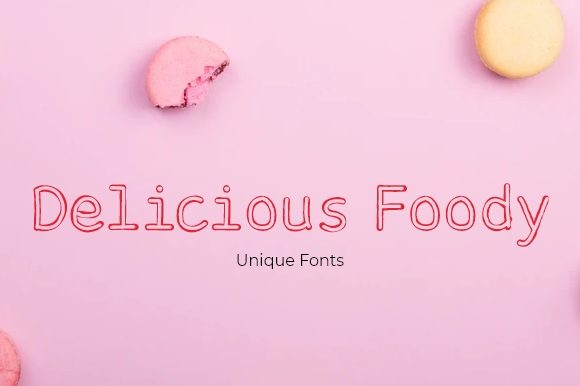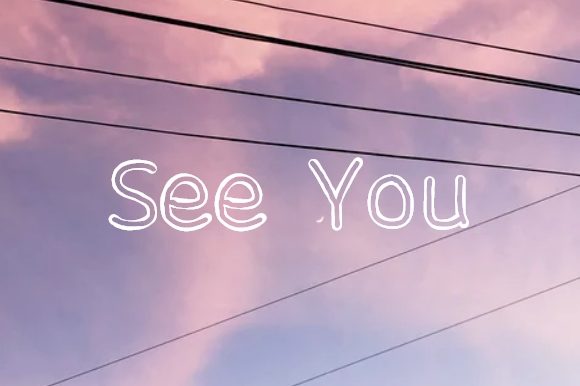
Introduction to Ornat Font
Do you remember that moment when you stumbled upon the perfect font for your creative project? The one that made your design pop, and your heart skip a beat? For many designers, that moment is a game-changer. It’s the moment when everything comes together, and your project takes on a life of its own.
Today, we’re excited to share with you a hidden gem that’s sure to become your new favorite design resource – the Ornat Font. This high-quality, cool handwritten font features outline characters that will add a touch of whimsy to any project. With its transparent background, you can easily layer it over your designs, creating a beautiful and unique visual effect.
Key Features of Ornat Font
- High-quality, vector-based font ideal for creative projects requiring intricate designs and details.
- Includes a range of glyphs and characters, including Latin, Cyrillic, and Greek alphabets, making it suitable for multilingual projects.
- Designed with a unique, ornate style that adds a touch of elegance and sophistication to any design project.
Honest Review: Ornat Font
As a designer, I’m always on the lookout for high-quality design resources that can elevate my creative projects. Recently, I stumbled upon the Ornat Font, and I’m excited to share my honest review with you.
What works well: ✨ The Ornat Font is incredibly versatile, with a range of styles and weights that make it perfect for a variety of design projects. I love how the font is designed with a transparent background, making it easy to layer and combine with other design elements. The font also has a unique, ornate feel that adds a touch of elegance to any design.
Any limitations: ⚠️ While the Ornat Font is an excellent addition to any designer’s toolkit, I do wish it had more language support. Currently, it’s only available in a few languages, which might limit its use for projects that require a broader language scope.
Overall, I’m thoroughly impressed with the Ornat Font. Its high-quality design, versatility, and transparent background make it a valuable resource for any designer. If you’re looking for a new font to add to your design arsenal, I highly recommend checking out the Ornat Font.
The Ornat Font is ideal for various design projects, including wedding invitations, business cards, and social media graphics. Its high-quality design makes it a popular choice among designers.
Tips for Getting the Most Out of Ornat Font
To get the most out of the Ornat Font, experiment with different font sizes, colors, and styles. You can also combine it with other design elements to create a unique and eye-catching design. Additionally, make sure to save a copy of the font in a transparent background format to ensure seamless integration with your design.
The Alex Brush Font is a beautiful, high-quality script font that’s perfect for use in design resources such as wedding invitations, certificates, and other formal documents. It’s available for free download, making it a great design resource for those looking for a high-quality font without breaking the bank.
Is the Ornat Font suitable for print or digital use?
The Ornat Font is designed to be versatile and suitable for both print and digital use. Its high-quality design ensures crisp and clear typography in various resolutions and sizes. However, for optimal results, it’s recommended to use the font at a minimum size of 12 points for print and 16 pixels for digital applications.